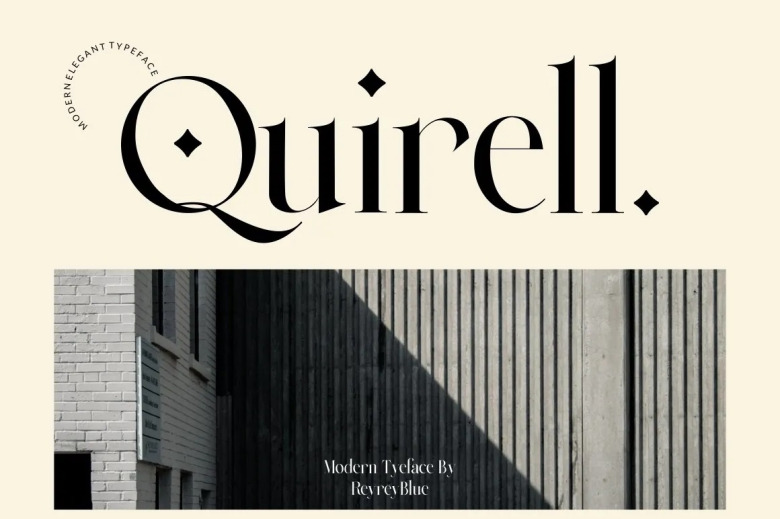
Quirell Font
Quirell Serif Font is a new serif display font with modern and elegant touch. The font is perfectly suitable for creating elegant, artistic, classic design such as logos, branding materials, wedding and event stationery, social media overlays, cards and so on.
Quirell Serif Font